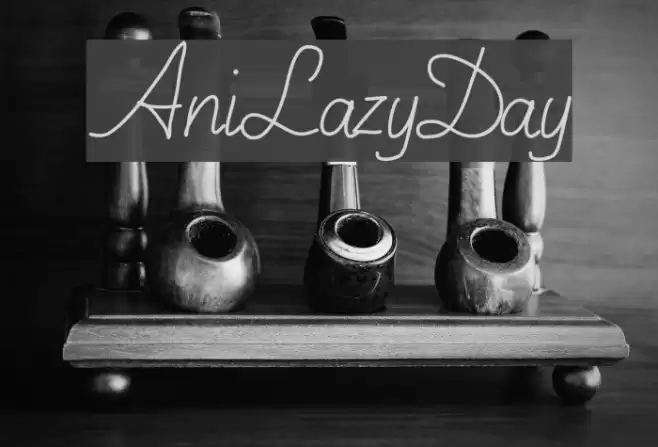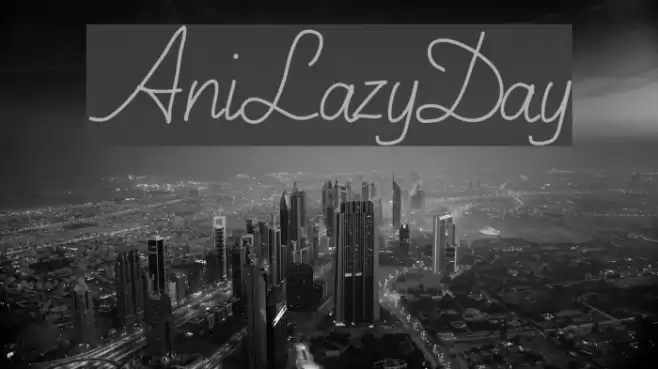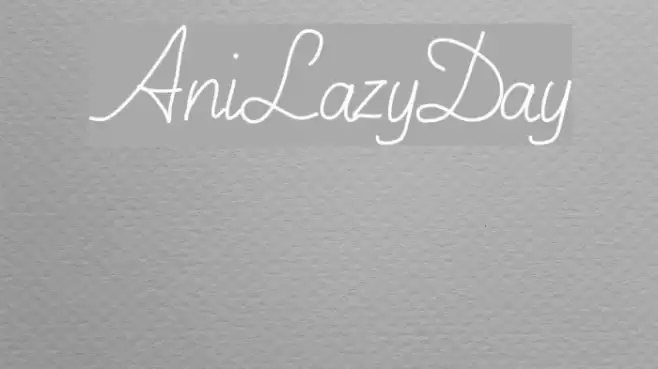
AniLazyDay Font
AniLazyDay Description
This font exudes a casual and relaxed vibe, characterized by its flowing, handwritten style. The letters are elegantly connected, giving a sense of continuity and fluidity. The uppercase letters maintain a consistent height, while the lowercase letters have a playful, slightly uneven baseline, adding to the informal charm. The numerals and special characters are crafted with the same attention to detail, ensuring a cohesive look across all text. The strokes are smooth and consistent, with a medium contrast that enhances readability without sacrificing the font's artistic flair.
A casual, handwritten font with flowing, connected letters and medium contrast from Handwritten fonts.
- Proposed Projects: Ideal for personal invitations, greeting cards, casual branding, and social media graphics.
- Overall Style: Casual, Artistic
- Use Case: Invitations, Greeting cards, Casual branding